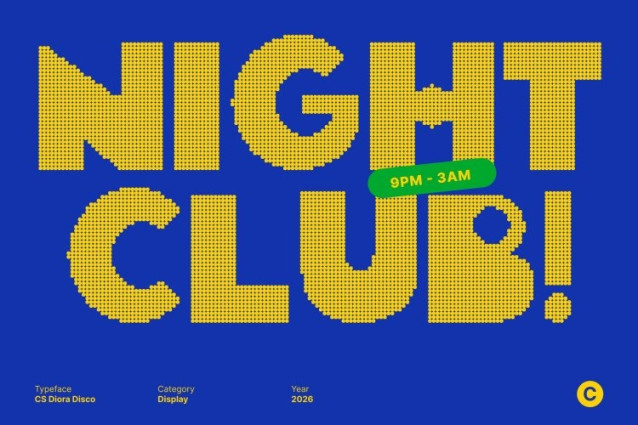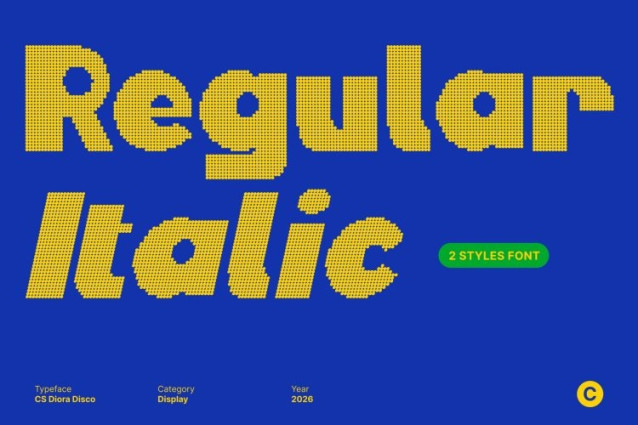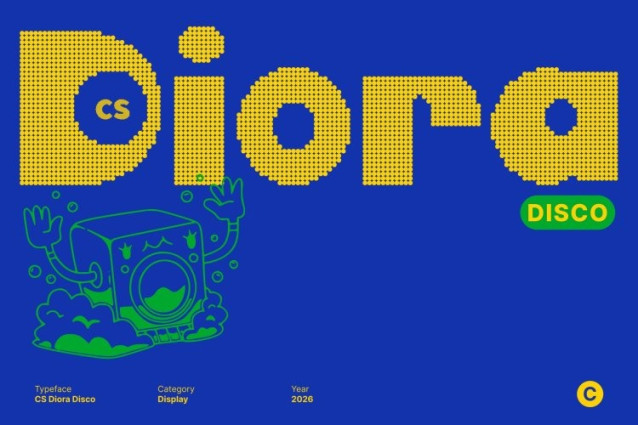
CS Diora Disco Font
CS Diora Disco Font This is a bold display font built on strong geometric foundations and distinctive character constructions. Its confident, eye-catching letterforms deliver instant impact, making it ideal for titles and headlines that demand attention. Clean structure meets expressive details, creating a modern display font that feels bold, stylish, and full of movement.
Fresh, Cheerful Personality with Cool Attitude
What truly defines this is its upbeat and joyful character. The playful geometry and creative letter shapes introduce a sense of fun and positivity, while the solid construction keeps the look cool and contemporary. This balance gives the font an energetic yet controlled presence lively without being chaotic, expressive without sacrificing clarity.
Modern Expression for Eye-Catching Branding
Designed to shine in bold visual applications, this font performs beautifully in posters, branding, logos, campaigns, and social media graphics. Its thick strokes ensure excellent readability at large sizes, while its unique forms add charm and originality. Every word feels expressive, confident, and designed to be remembered.
Versatile Display Font with Festive Flair
Combining modern geometry with a festive disco spirit, this font adapts easily across print and digital media. Whether used in playful branding, creative layouts, or energetic promotional visuals, brings a fresh, stylish, and engaging tone infusing every project with personality, rhythm, and contemporary charm